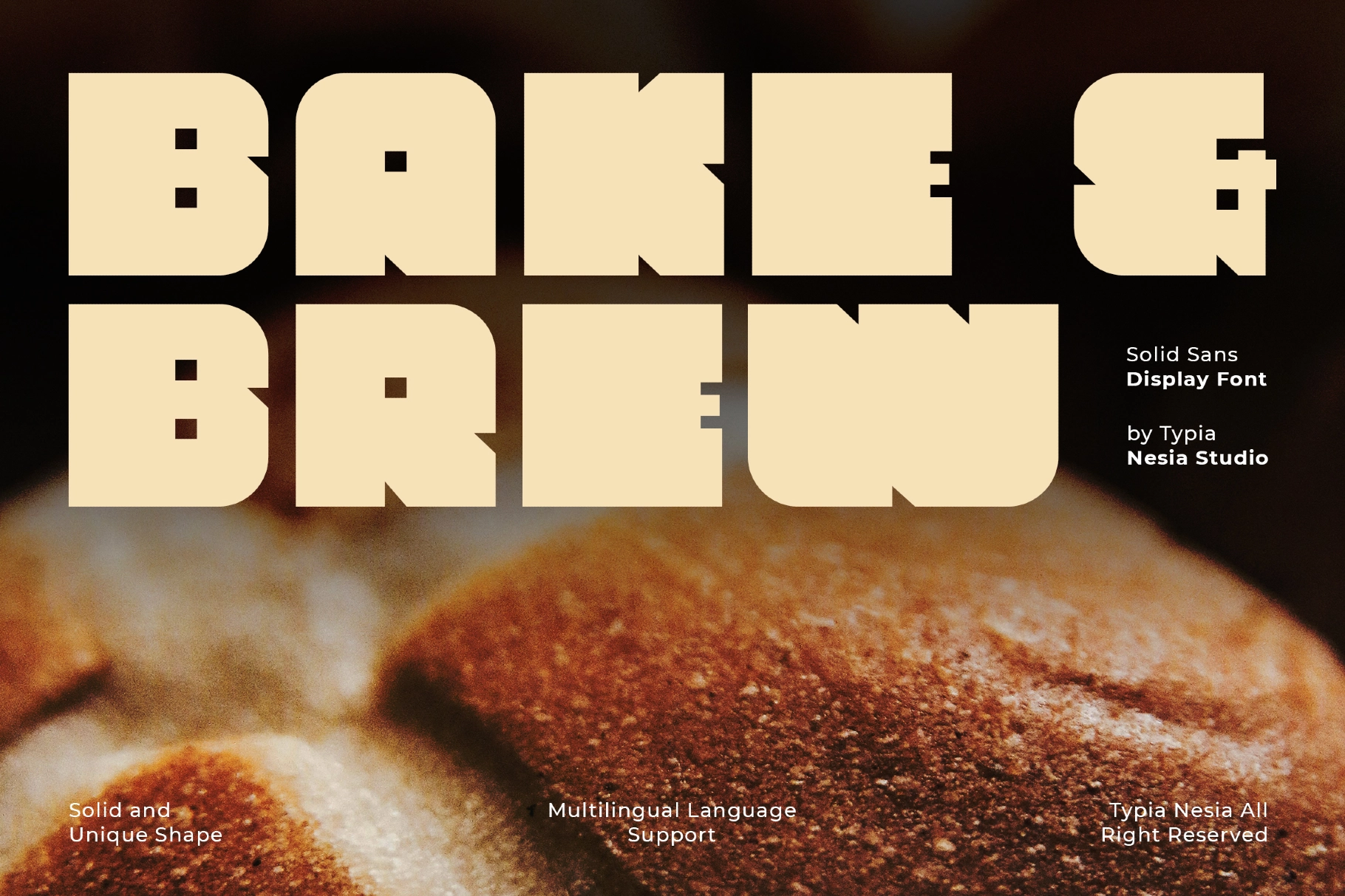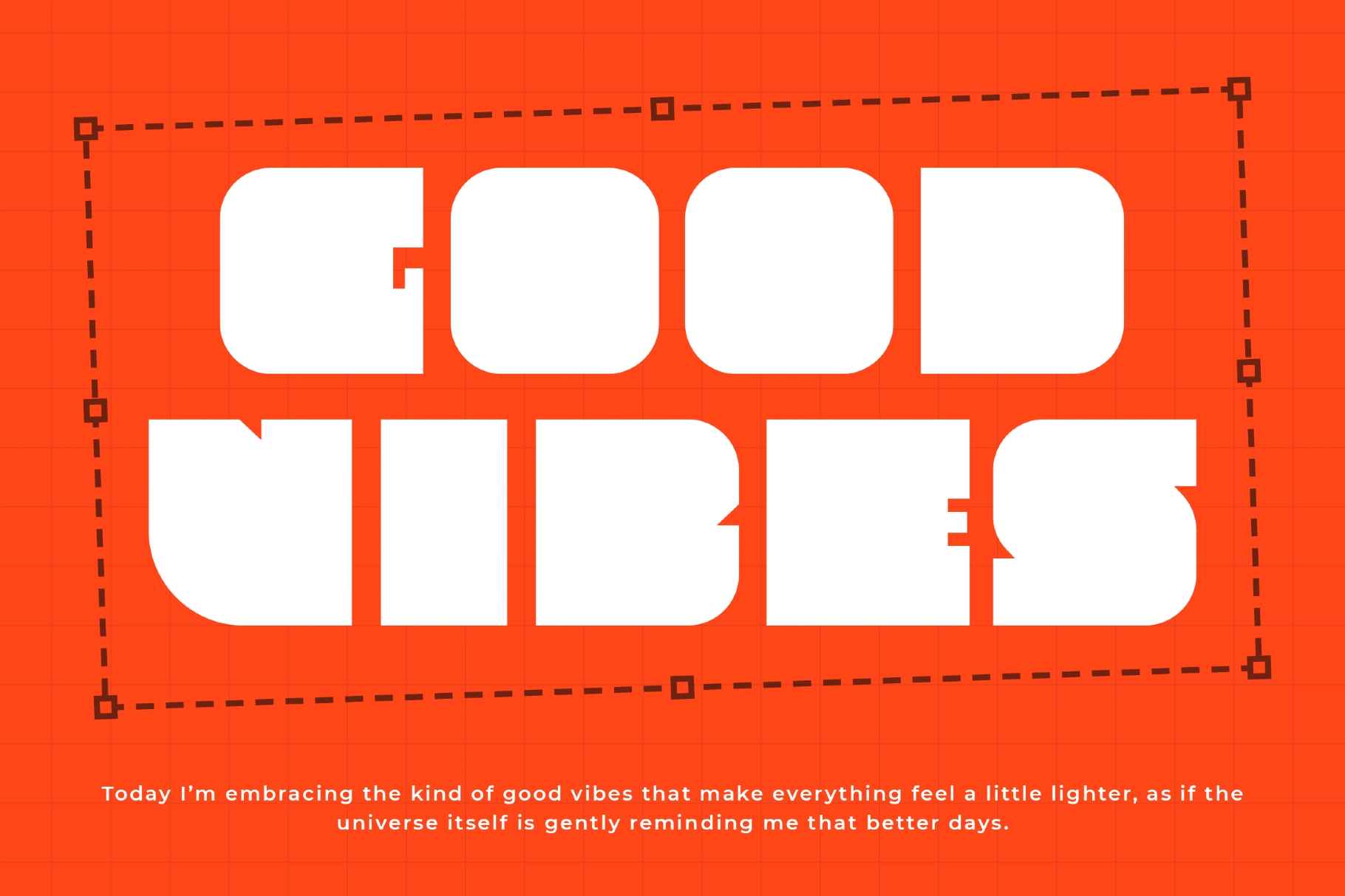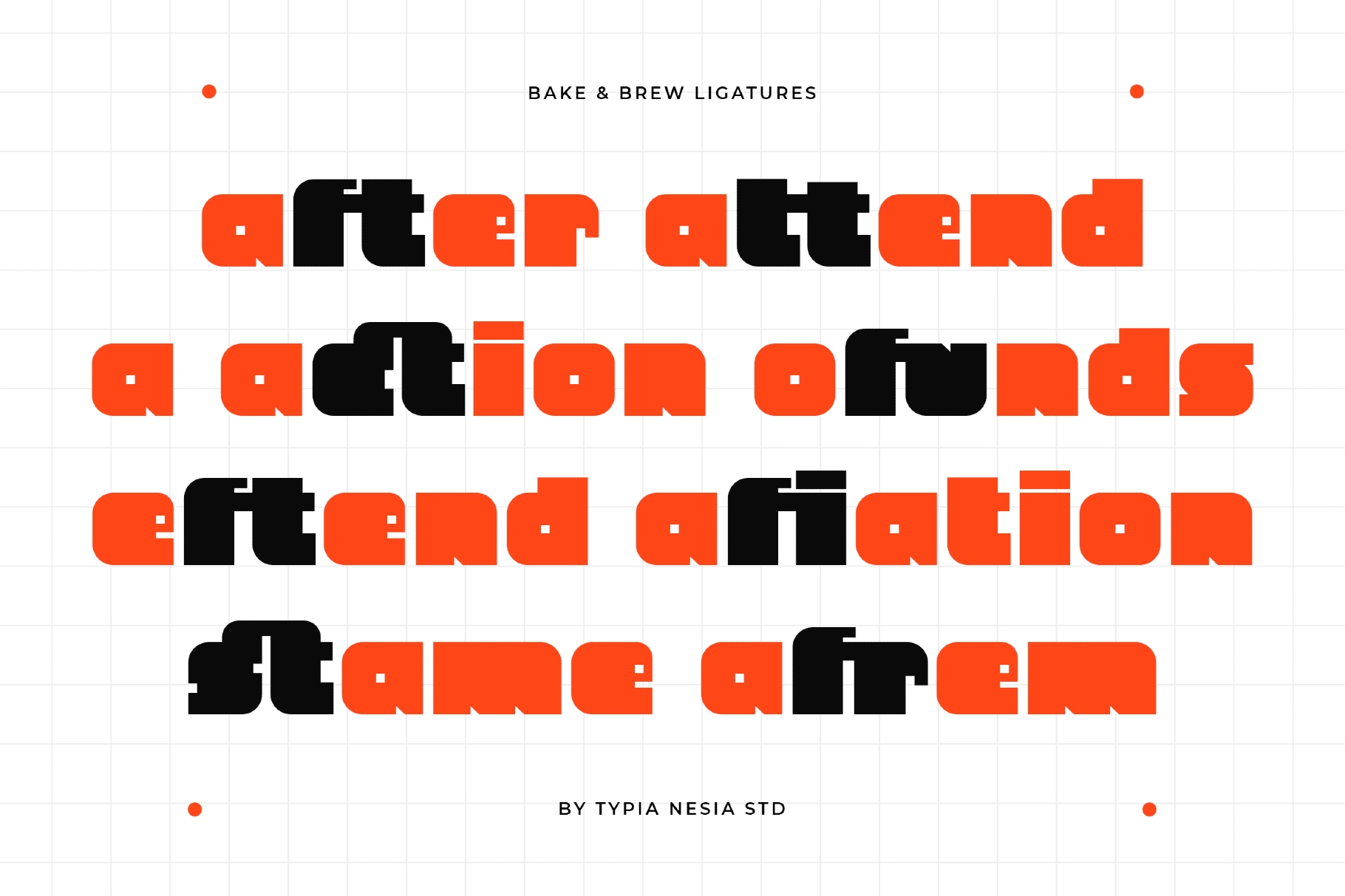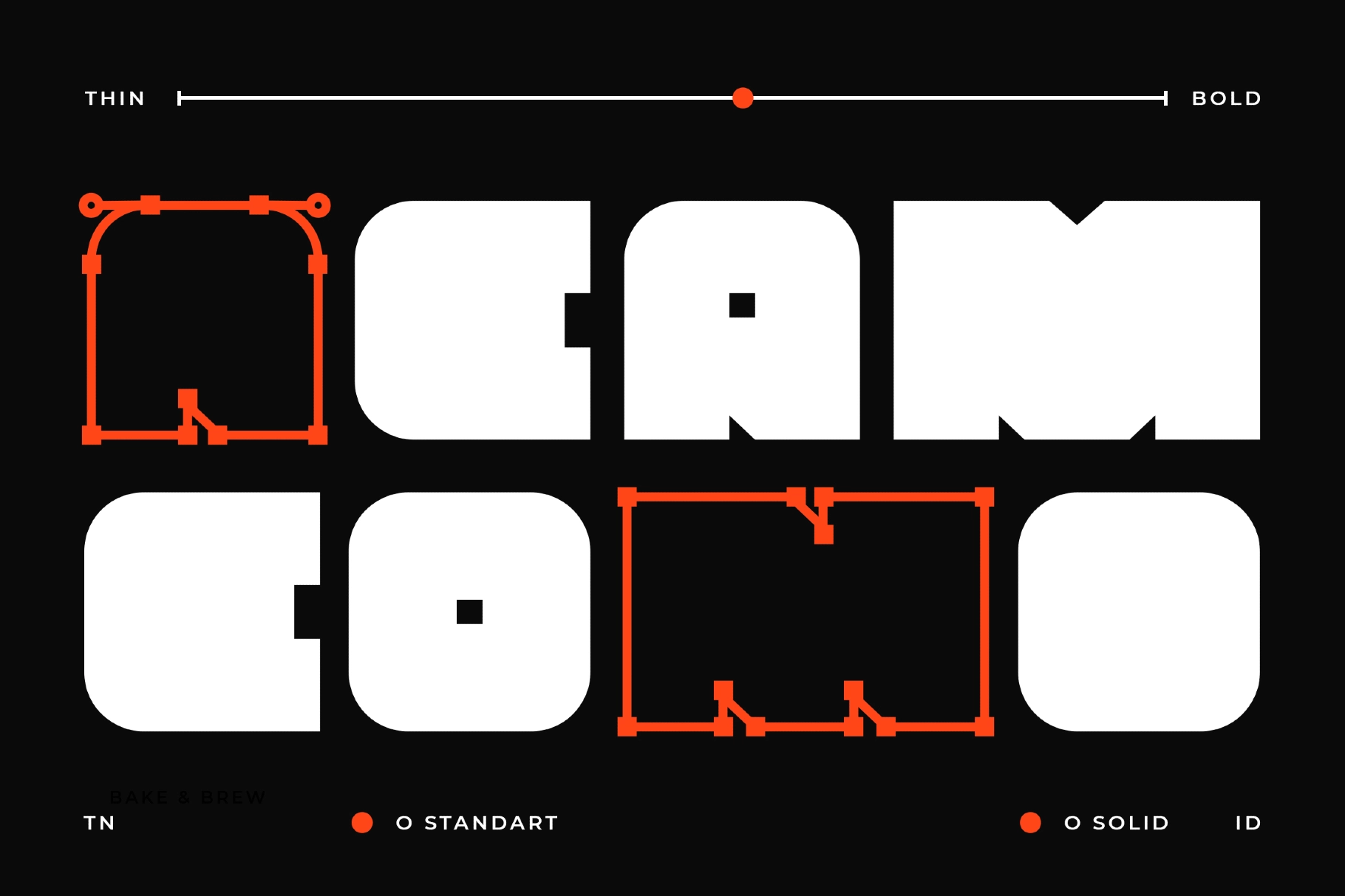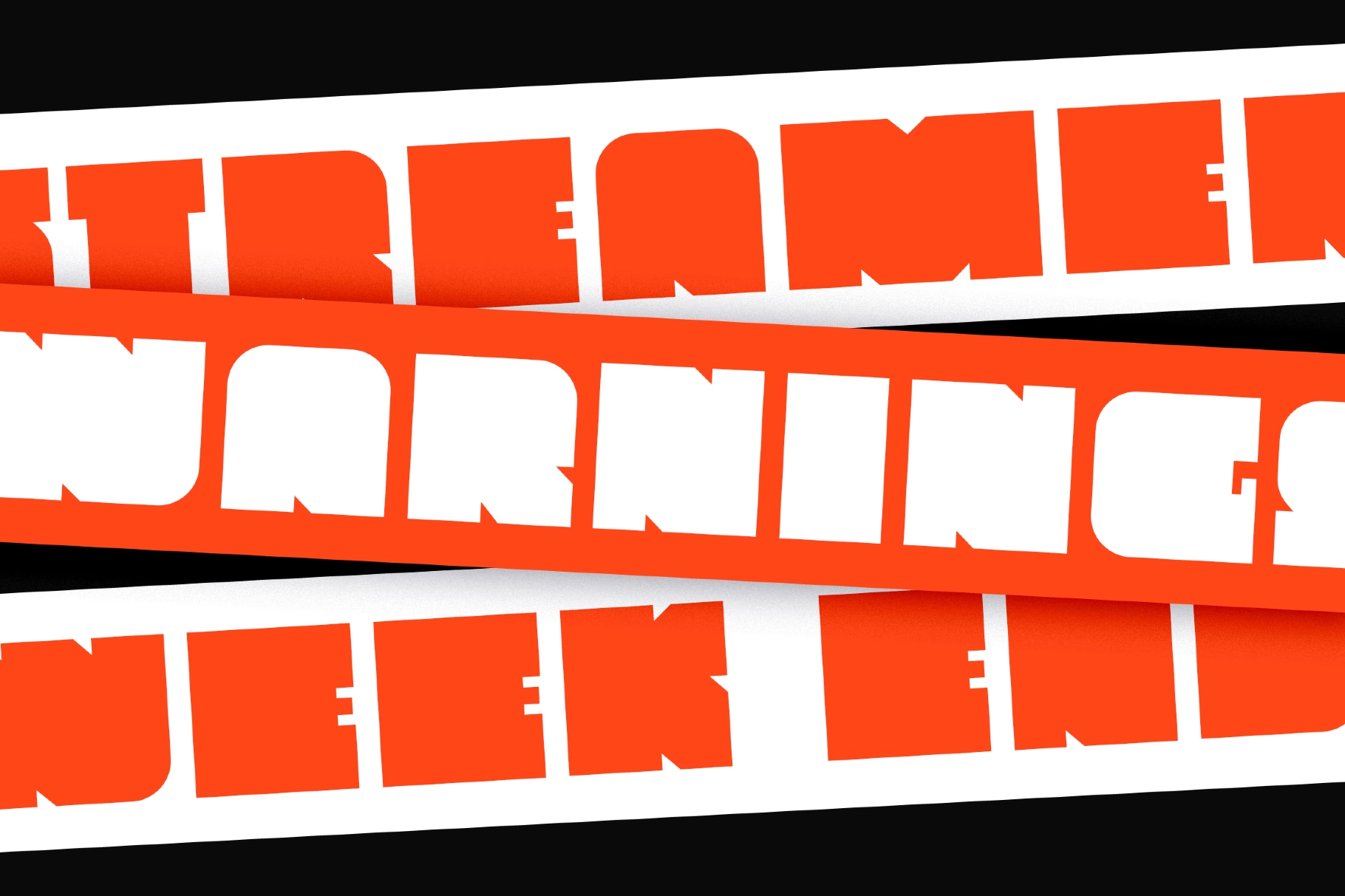
Bake & Brew - Bold Chunky Display Sans
Bake & Brew introduces a modern bold sans serif with rounded contours and a lively, approachable personality. The font's confident shapes and gentle curves deliver a playful yet refined touch, making it ideally suited to projects that seek a striking visual identity. From bakery branding to coffee shop signage or standout social media graphics, Bake & Brew brings a well-balanced fusion of modern clarity and retro flair. Its solid appearance ensures strong legibility, while the rounded forms keep the design accessible and welcoming.
• Bold, chunky letterforms with smooth rounded edges
• Strong presence for headlines, branding, and packaging
• Versatile for retro-inspired and modern design contexts